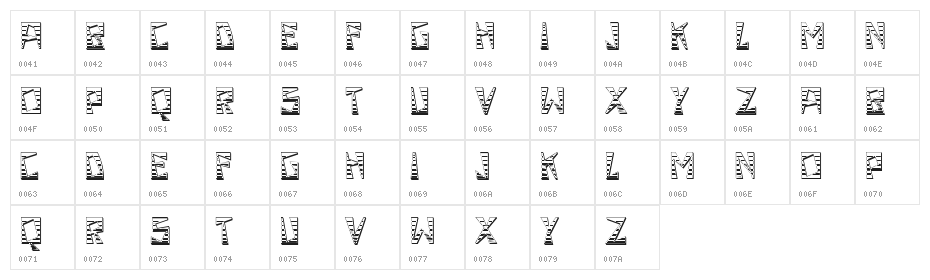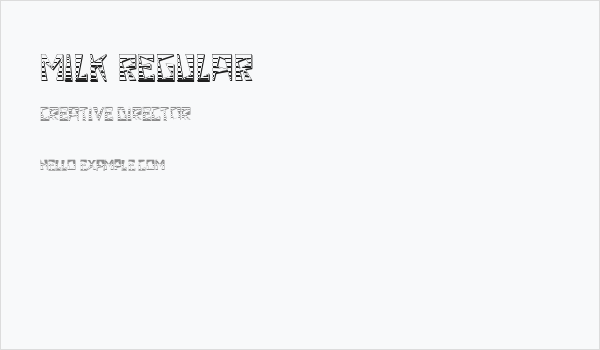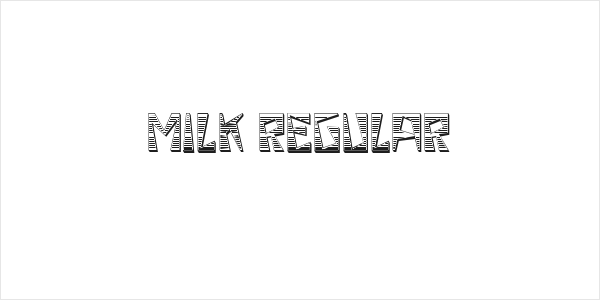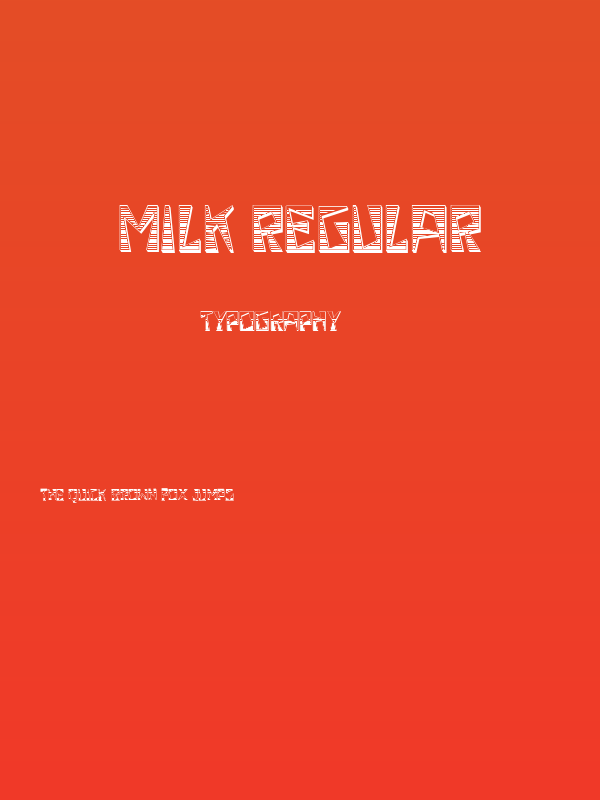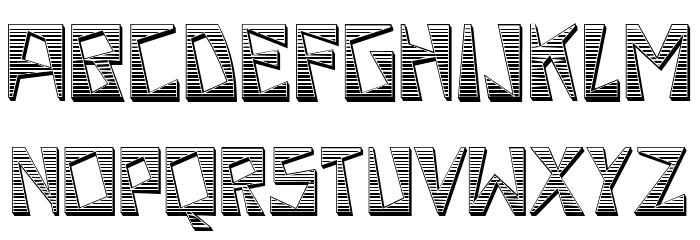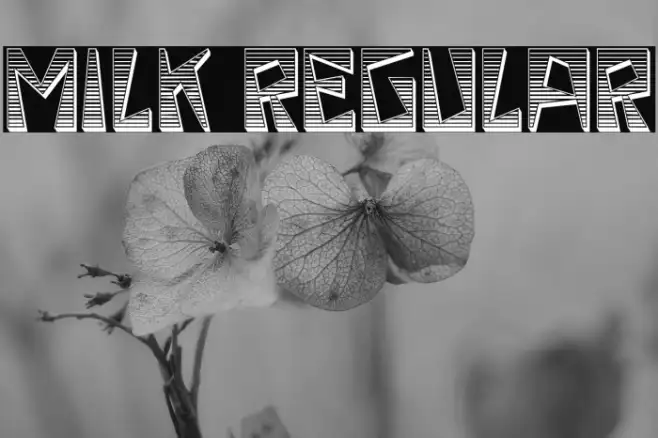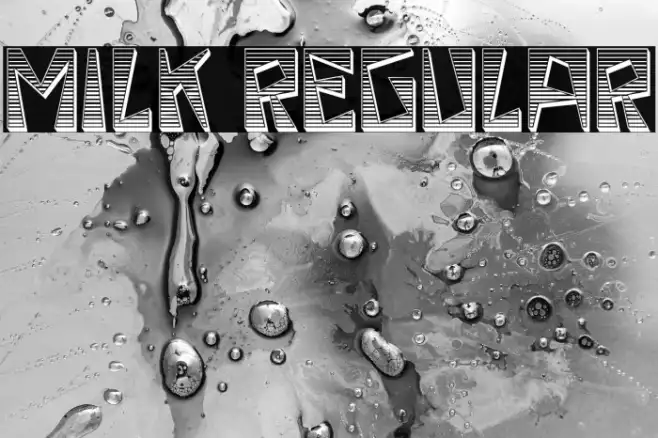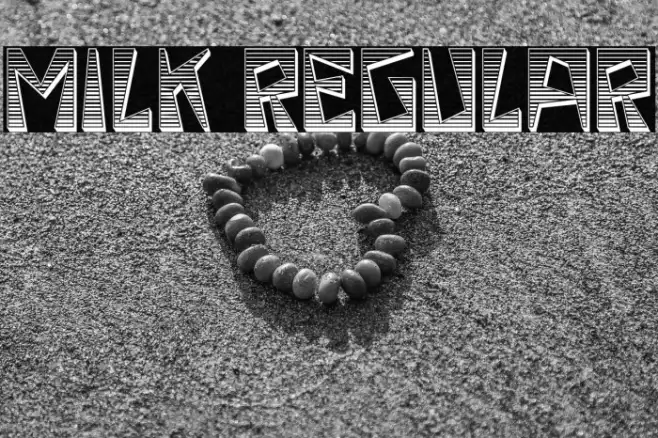
Milk Regular Font
Milk Regular Description
This font features a bold, geometric style with a distinct striped pattern running through each character. The uppercase letters are angular and sharp, giving a modern and edgy feel. The consistent use of horizontal lines within the characters adds a unique texture, making it stand out in any design. The font maintains a uniform width across all characters, ensuring a balanced and cohesive look. Its boldness and decorative elements make it suitable for eye-catching designs.
| Proposed Projects | Ideal for poster designs, album covers, branding, and any project needing a modern, edgy aesthetic. |